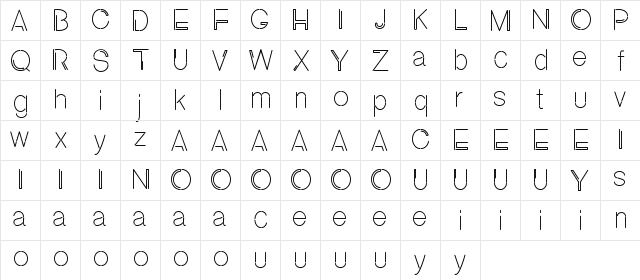
NEON ABSOLUTE SANS 1 Regular
| Foundry | Nirmana Visual |
| Designer | Sigit Dwipa |
Design Context for NEON ABSOLUTE SANS 1 Typeface
NEON ABSOLUTE SANS 1 has a distinctly futuristic character, with geometric precision and clean angles that feel at home in technology, gaming, and sci-fi contexts.